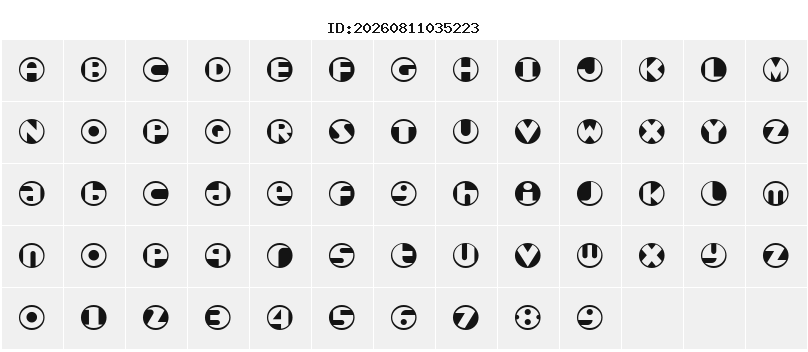
• Font Name: Roundel
• Full Font Name: Roundel
• PostScript Name: Roundel
About Roundel.ttf
Roundel.ttf is a modern, elegant sans-serif font designed for ultimate readability and visual harmony. Perfect for branding, headlines, web design, and print materials.